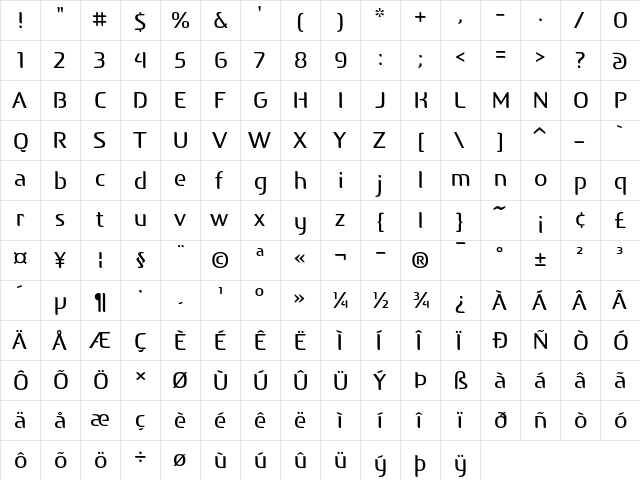
After Headline Light Regular
| Designer | Fabio Luiz Haag |
Design Context for After Headline Light Typeface
After Headline Light is a composed and adaptable typeface that performs quietly and consistently across a wide range of design contexts. Its slender proportions lend an understated elegance to any composition.
Pro Tip: Use After Headline Light in both headline and body roles to test its range before committing to a single application.